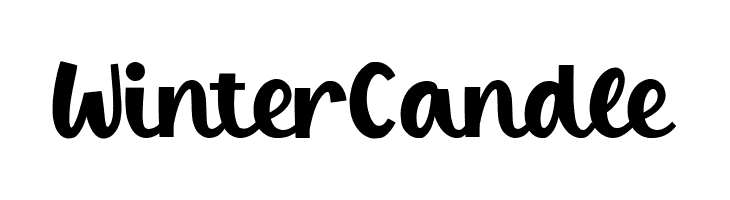
An elegant script font with ornate swashes and flowing curves.
A bold, distressed font with an expanded width and rugged texture.
A bold, italicized font with a futuristic, striped design.
A playful and elegant script font with flowing cursive letterforms.
A bold, modern sans-serif font with clean lines and strong presence.
A bold, dynamic font with rounded, slightly slanted characters.
A bold, geometric font with a futuristic and modern design.